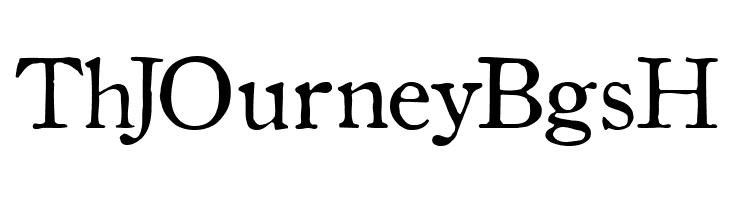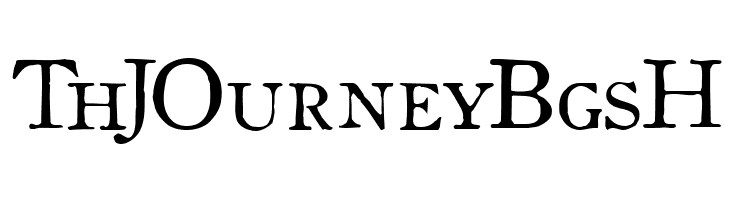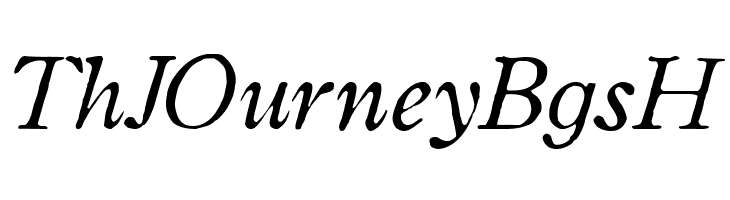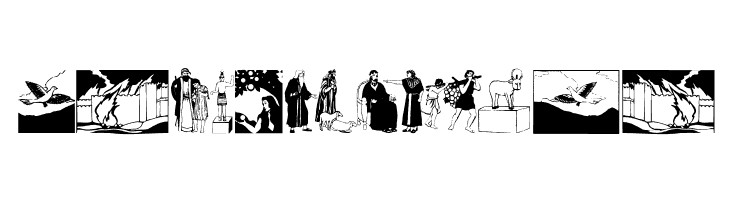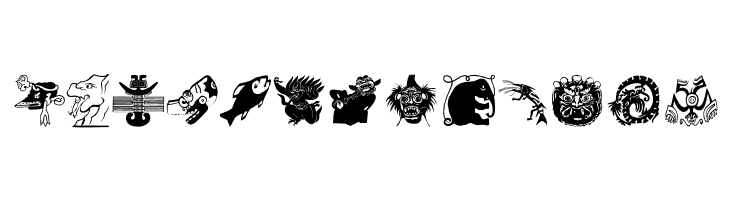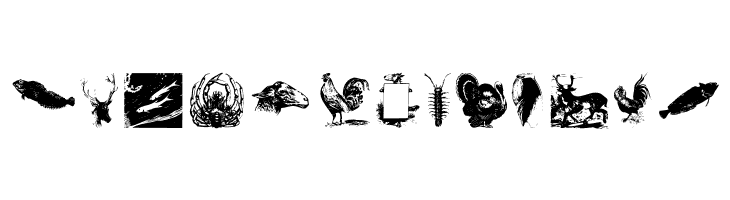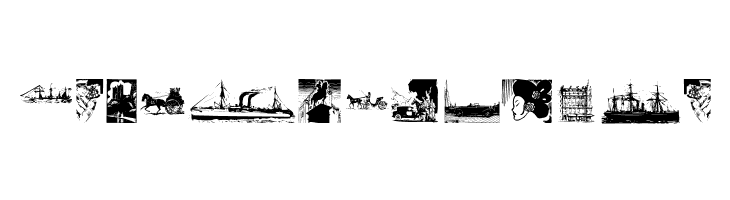
A classic serif font with a vintage and elegant style.
An elegant, classic italic font with a traditional and sophisticated style.
A classic serif font with elegant, bold uppercase and consistent lowercase characters.
An elegant italic old-style serif font with a classic and sophisticated appearance.
A classic serif font with a vintage, hand-crafted appearance.
A classic old-style serif font with pronounced serifs and a timeless elegance.
Vintage travel-themed dingbat illustrations.
Highly detailed animal illustration dingbat font.
Illustrative, story-driven font with biblical and ancient motifs.
Ornate symbol font inspired by tribal and ancient motifs.